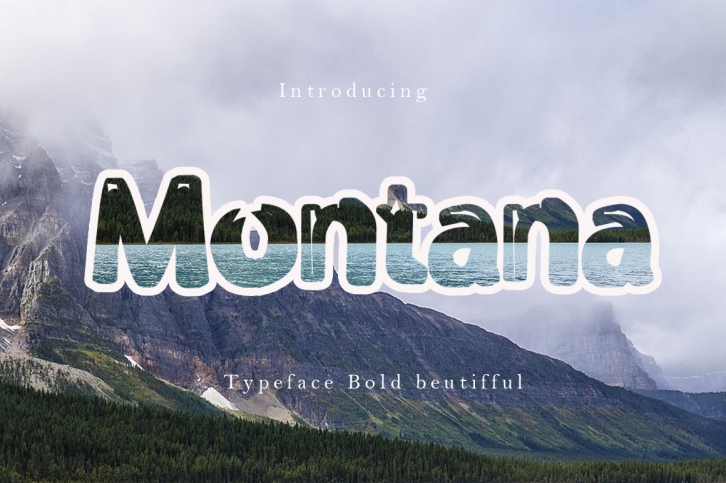
Montana is a cool, thick lettered display font. No matter the topic, this font will be an incredibly asset to your fonts’ library, as it has the potential to elevate any creation. https://www.creativefabrica.com/product/montana-14/ref/245145/